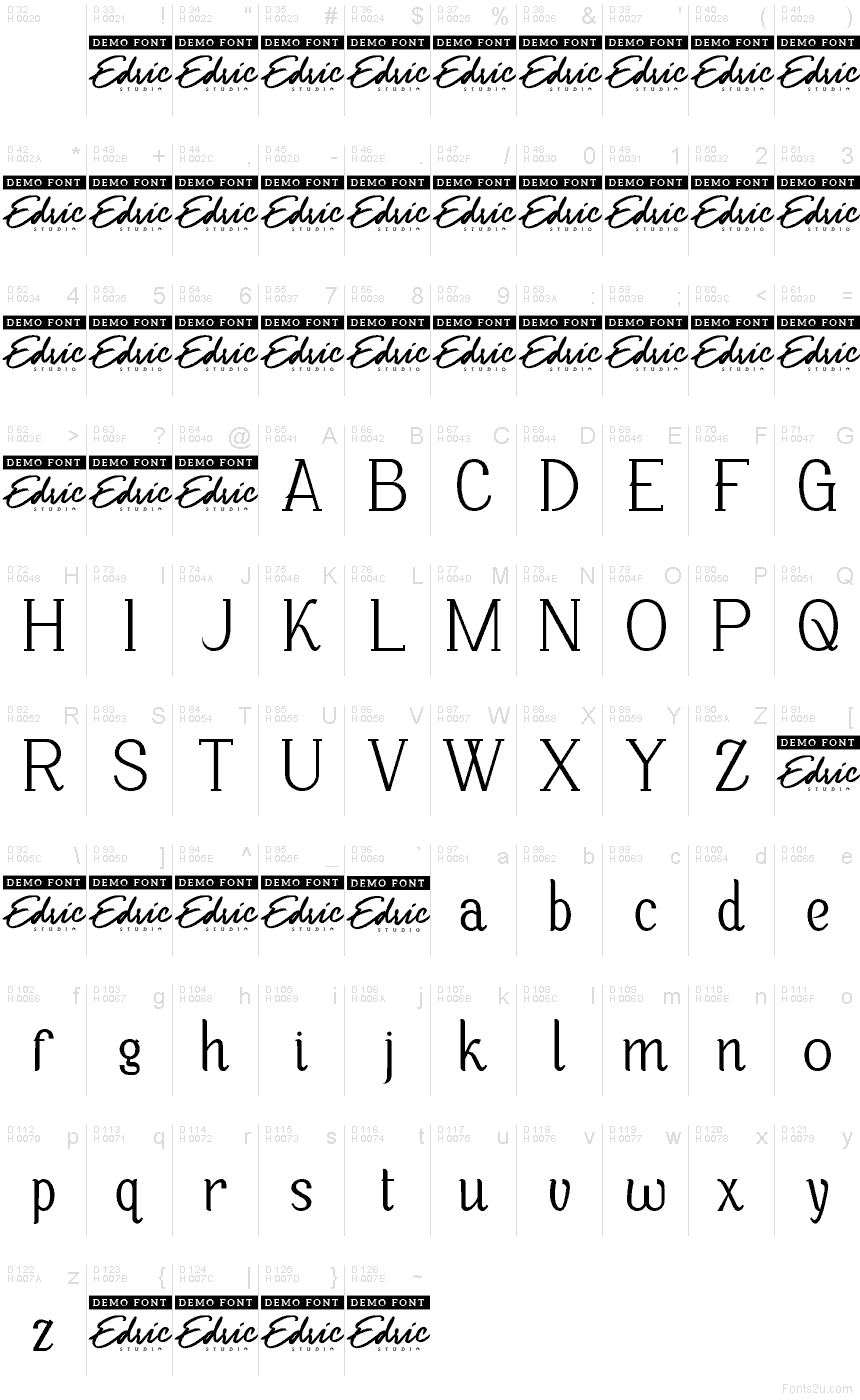
Blue Denim Demo
Blue Denim font by Edric Studio is a refined display typeface that combines classic elegance with subtle curves for a sophisticated appearance. Its timeless charm and polished design stand out in any context, making it a versatile choice for different projects.
This free display font can be used in advertising headlines, taglines, brand identities, packaging designs, book covers, website headers, printed promotional materials like brochures and flyers, posters and banners for events, labels of product packages or other surfaces such as simple stationery folders.